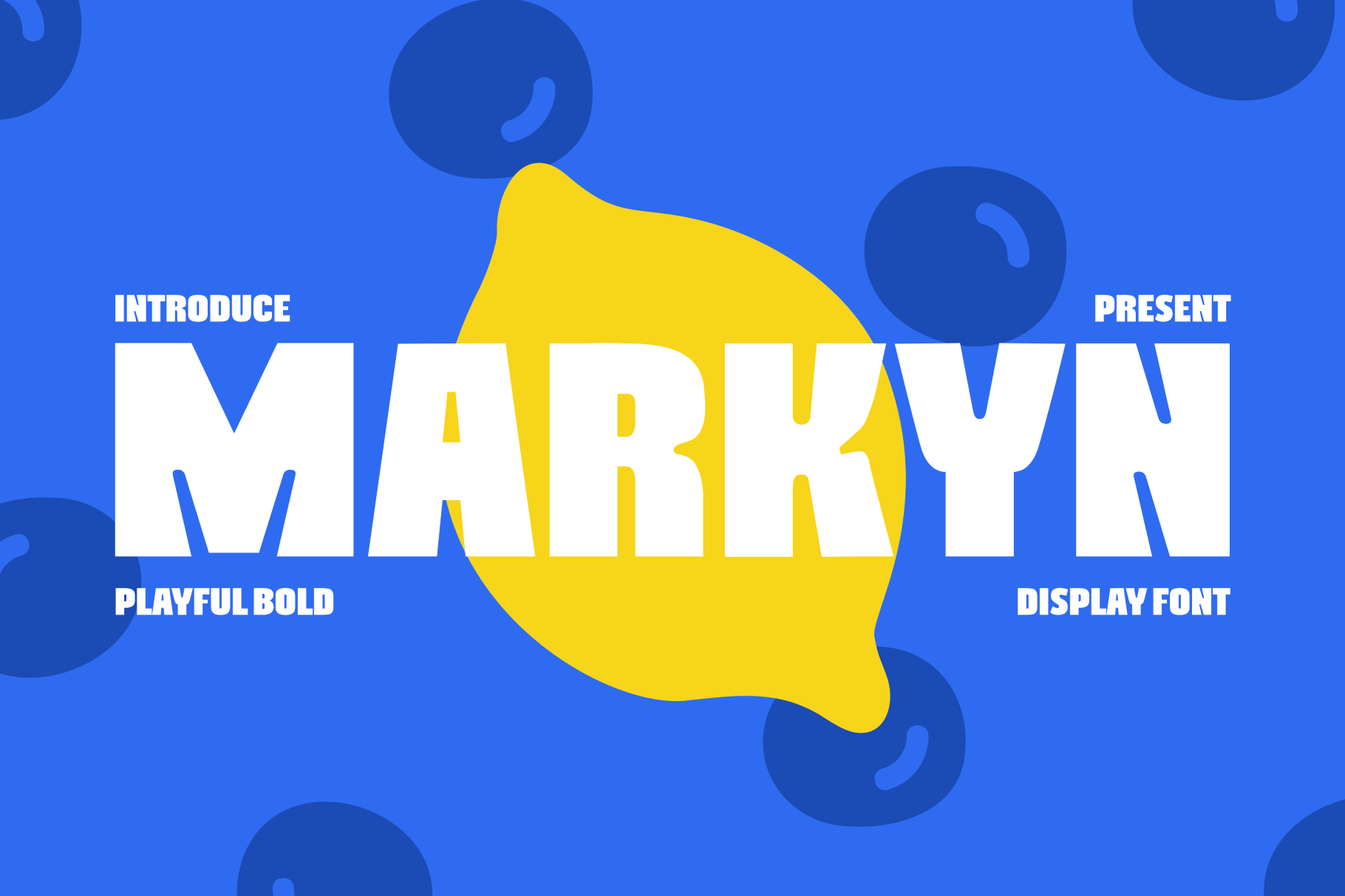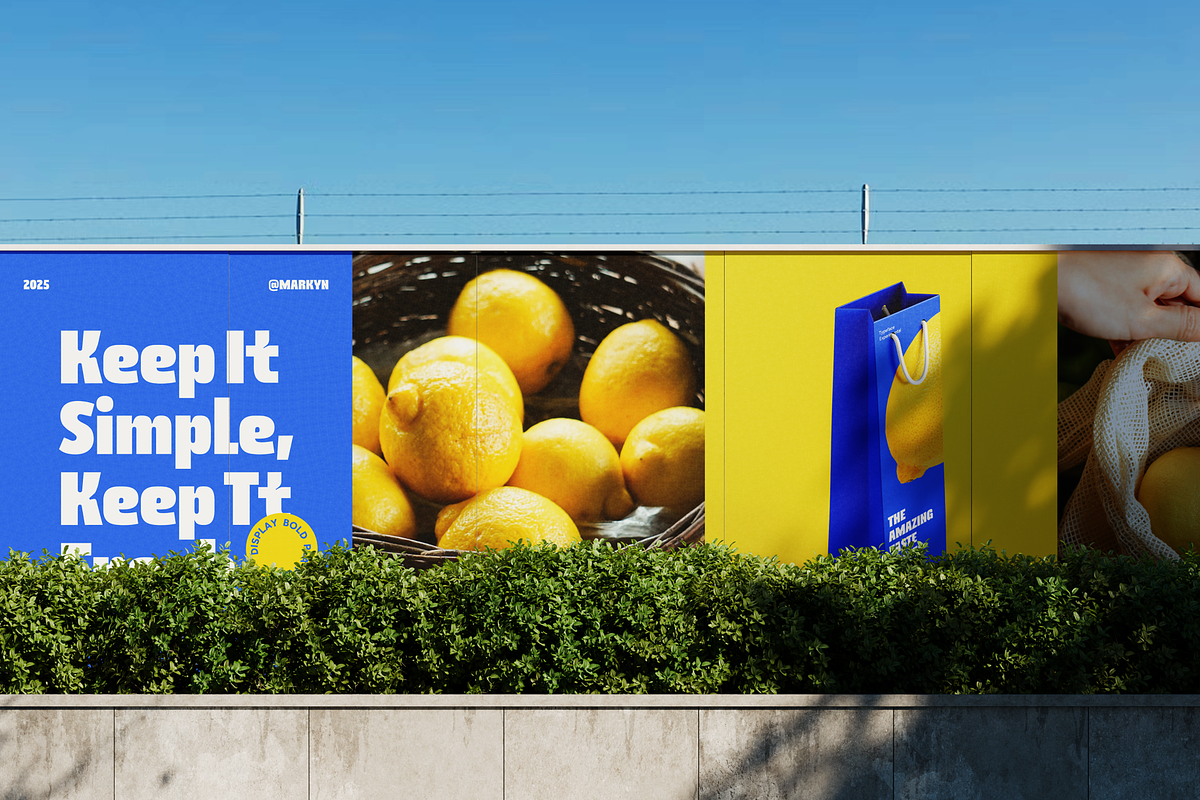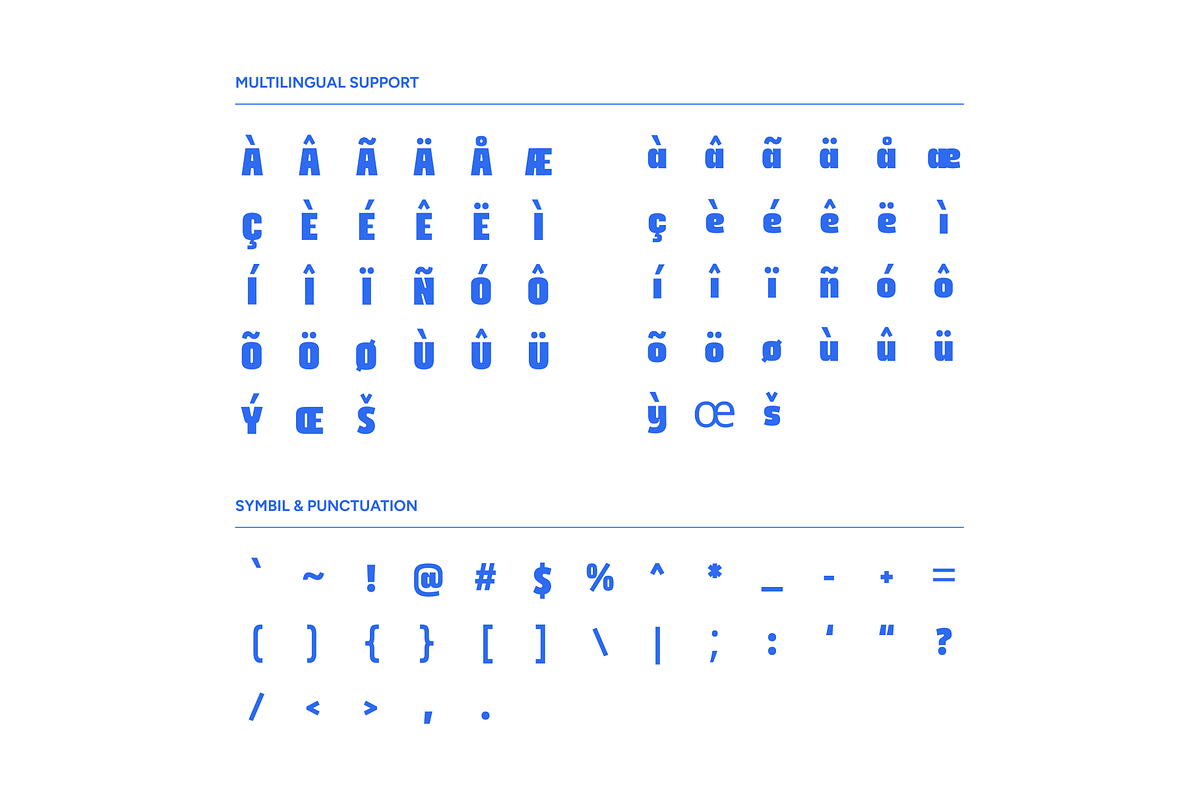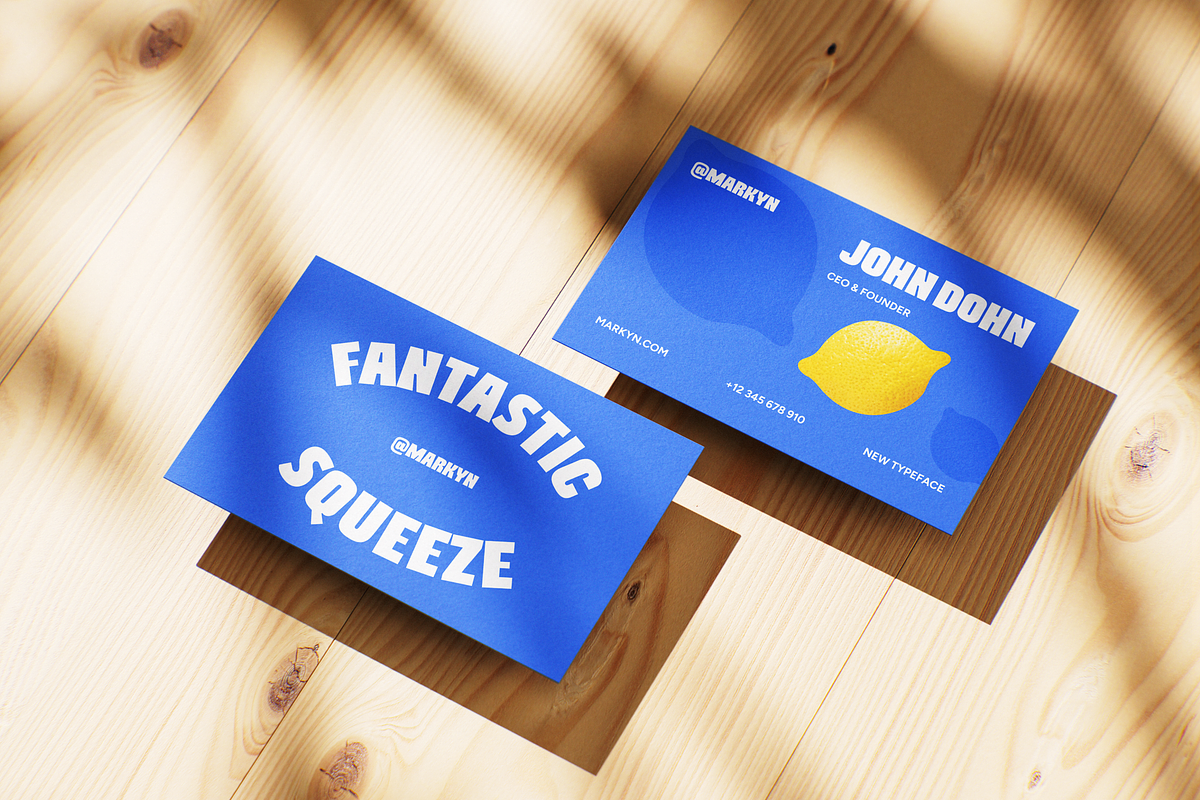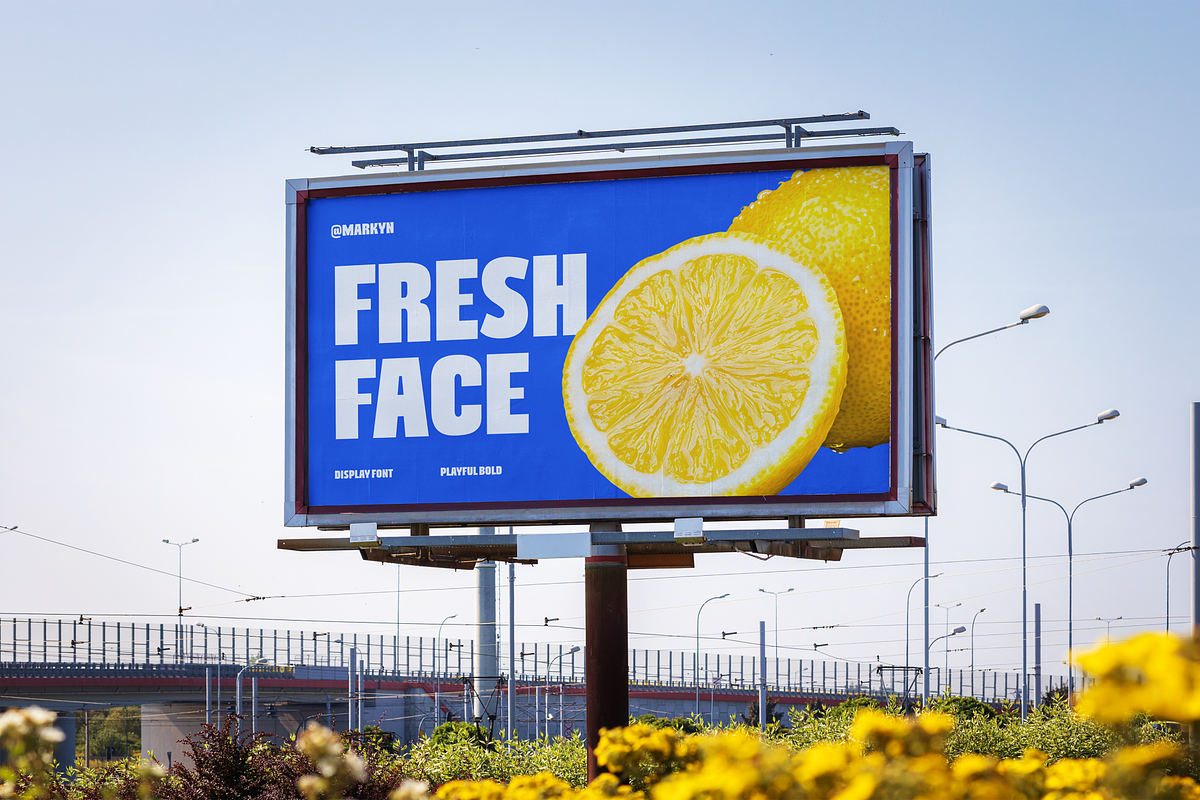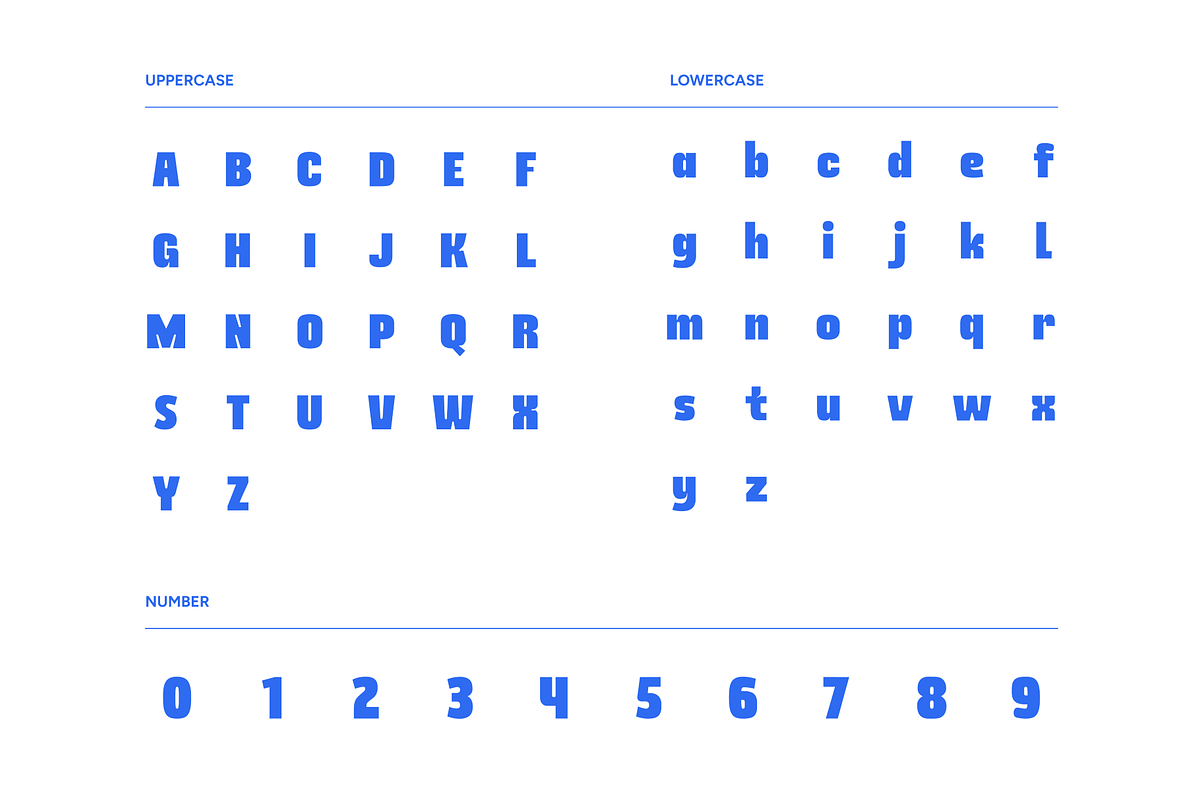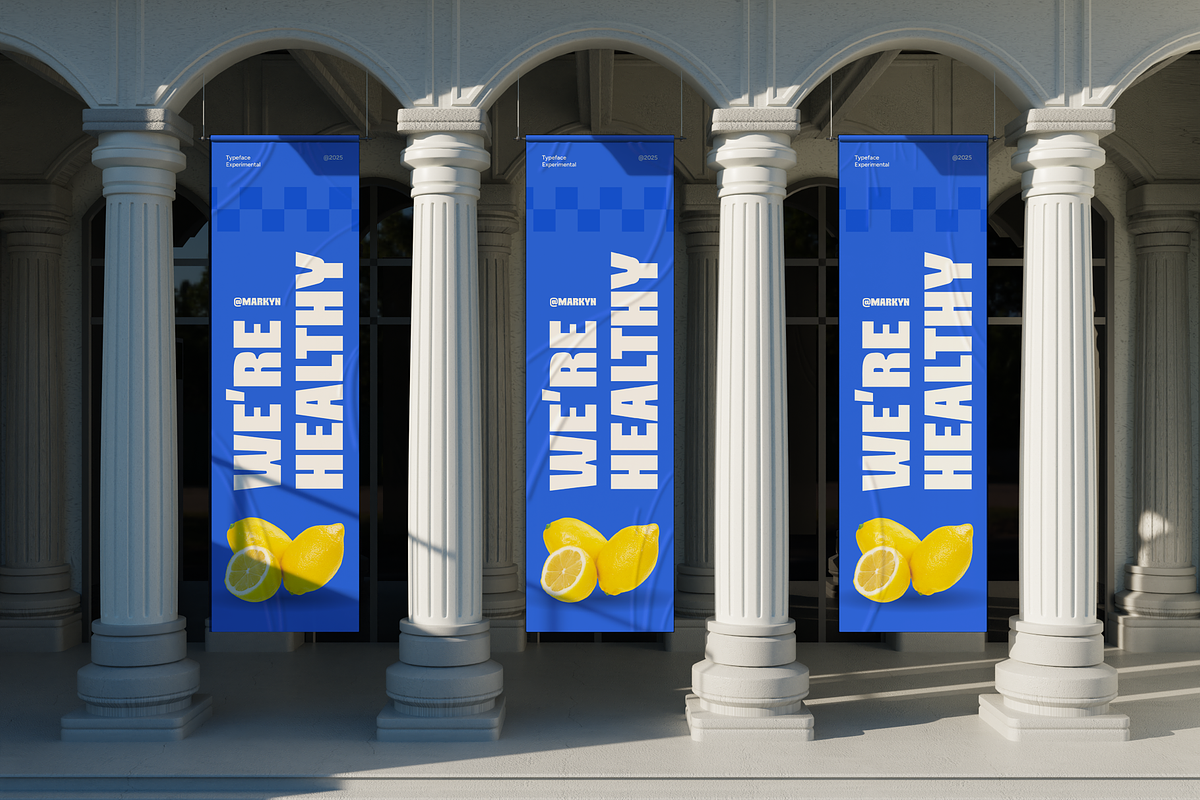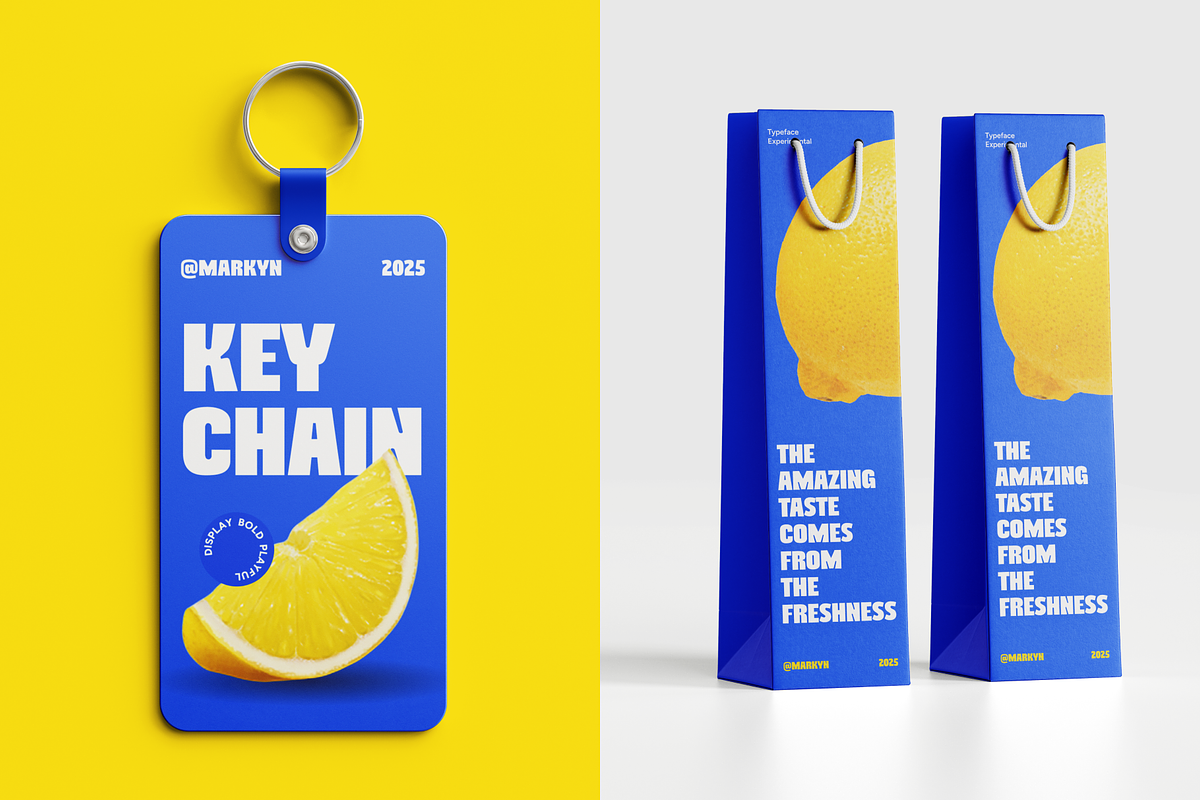
Markyn - Playful Bold Display Font
Markyn is a playful bold display font designed to grab attention with its thick, confident strokes and quirky shapes. Perfect for headlines, branding, packaging, posters, and social media graphics. Its modern yet fun vibe makes every design stand out with energy and character—ideal for bold creative projects.